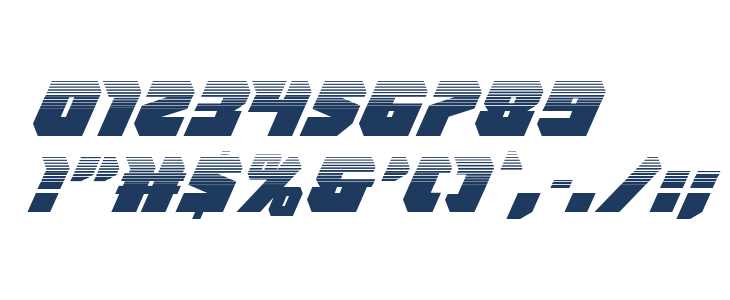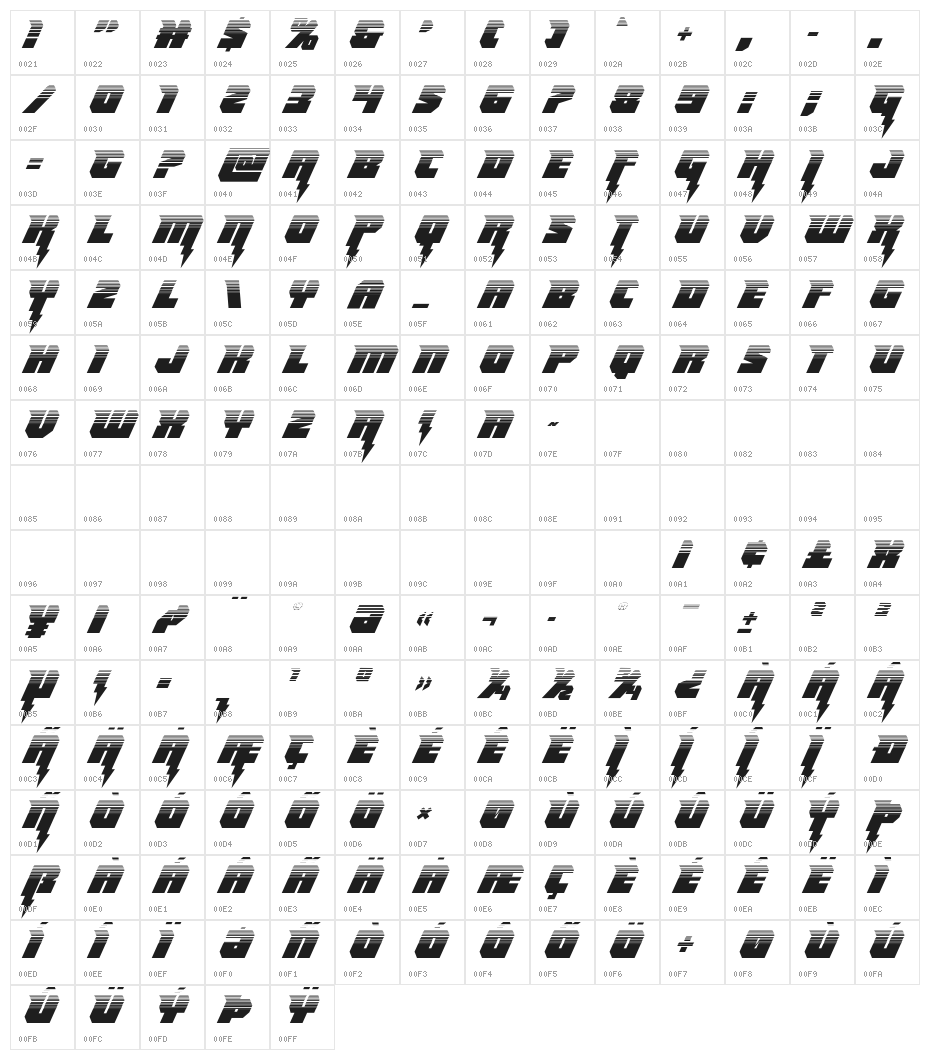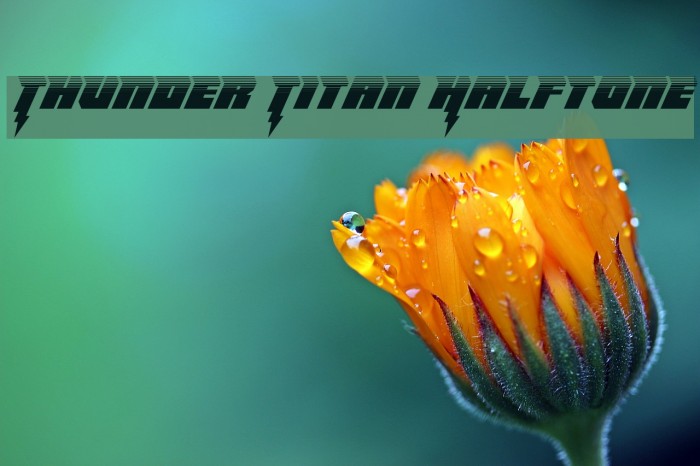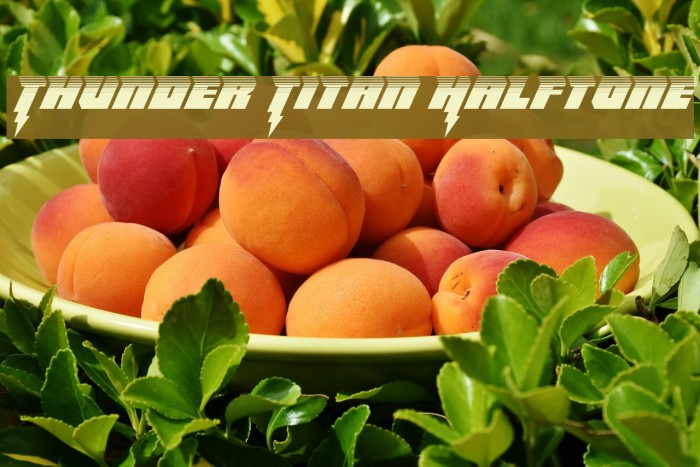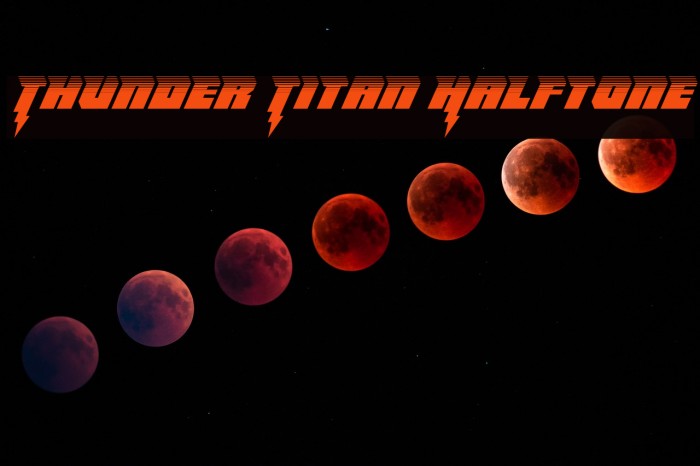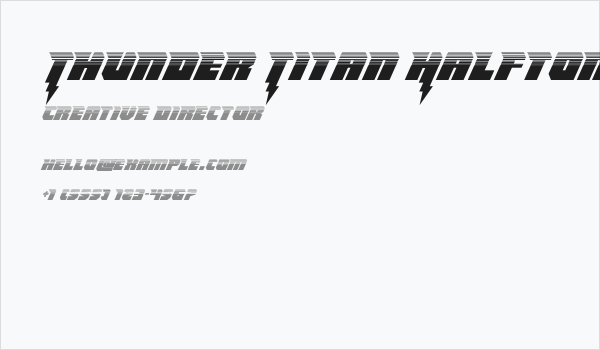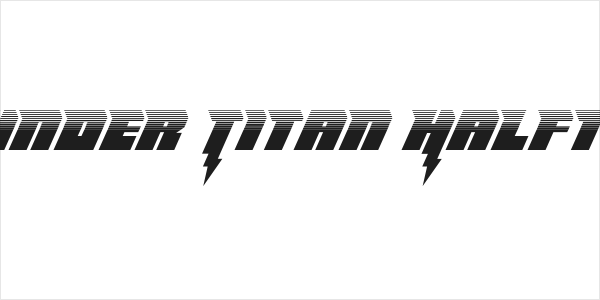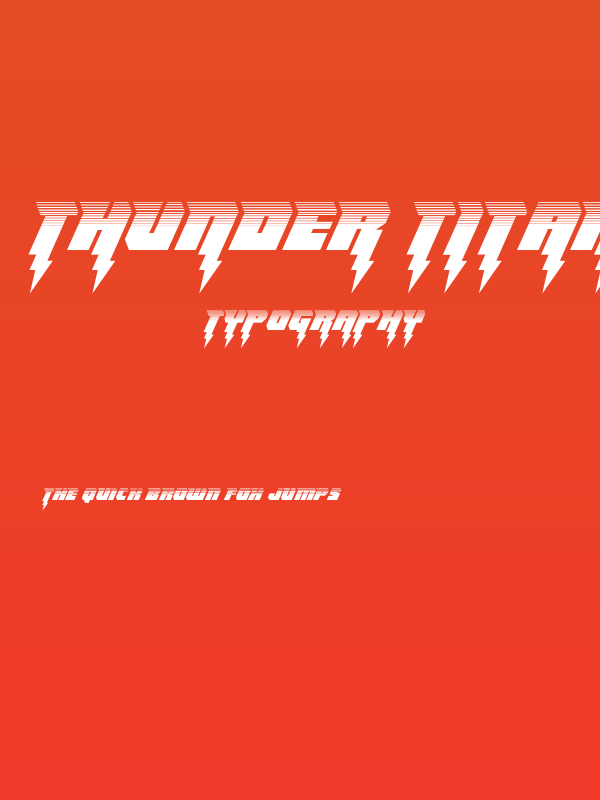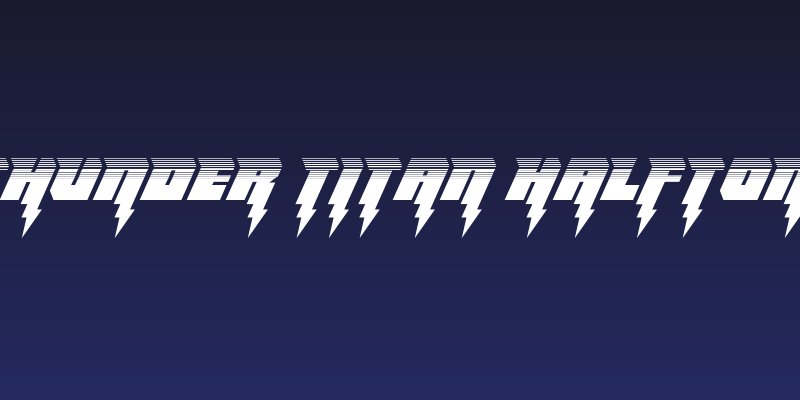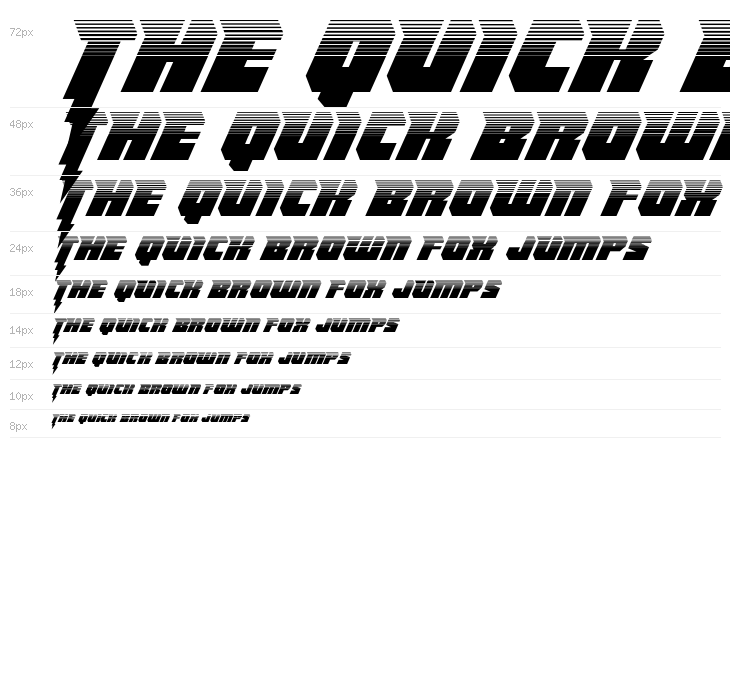
Thunder Titan Halftone Font
Thunder Titan Halftone Description
This bold and dynamic font features a striking design with a halftone effect that gives it a sense of movement and energy. The characters are angular and sharp, with a unique lightning bolt motif integrated into each letter, adding a sense of power and intensity. The uppercase letters are particularly prominent, making them ideal for attention-grabbing headlines or logos. The font's design is reminiscent of comic book styles, with a modern twist that makes it suitable for contemporary projects. Its bold presence is complemented by a consistent width and spacing, ensuring readability while maintaining its distinctive style.
| Proposed Projects | Perfect for comic book covers, action-themed posters, branding for energy drinks, or any project needing a bold, energetic typeface. |